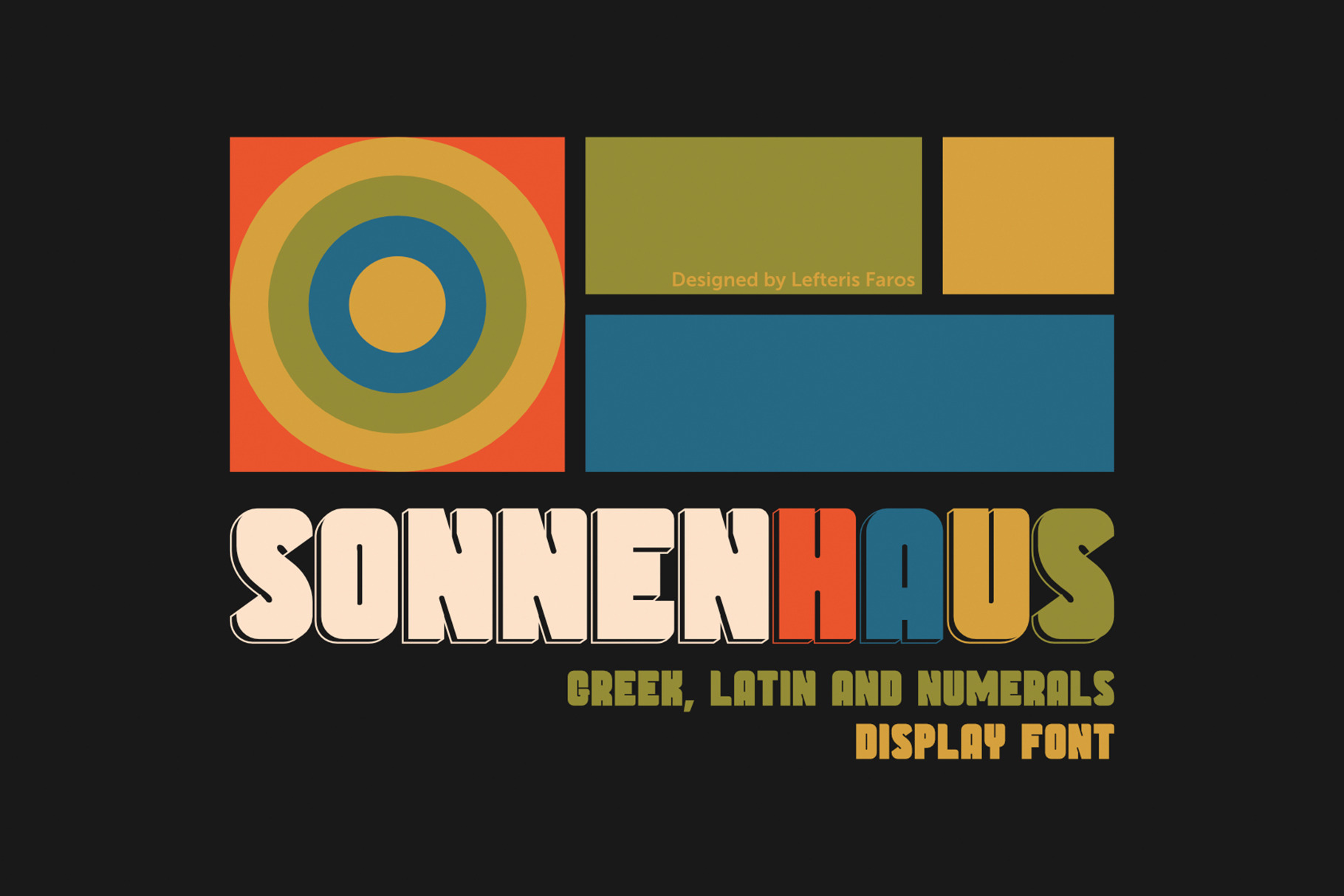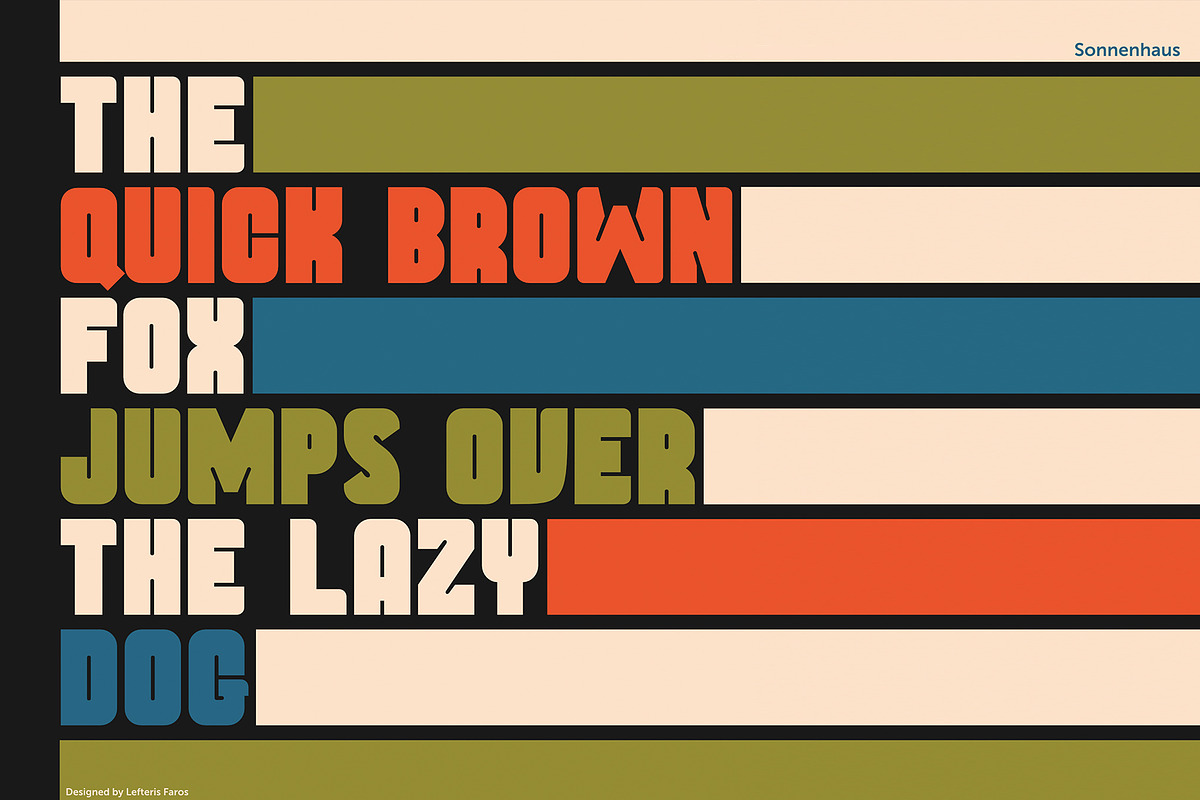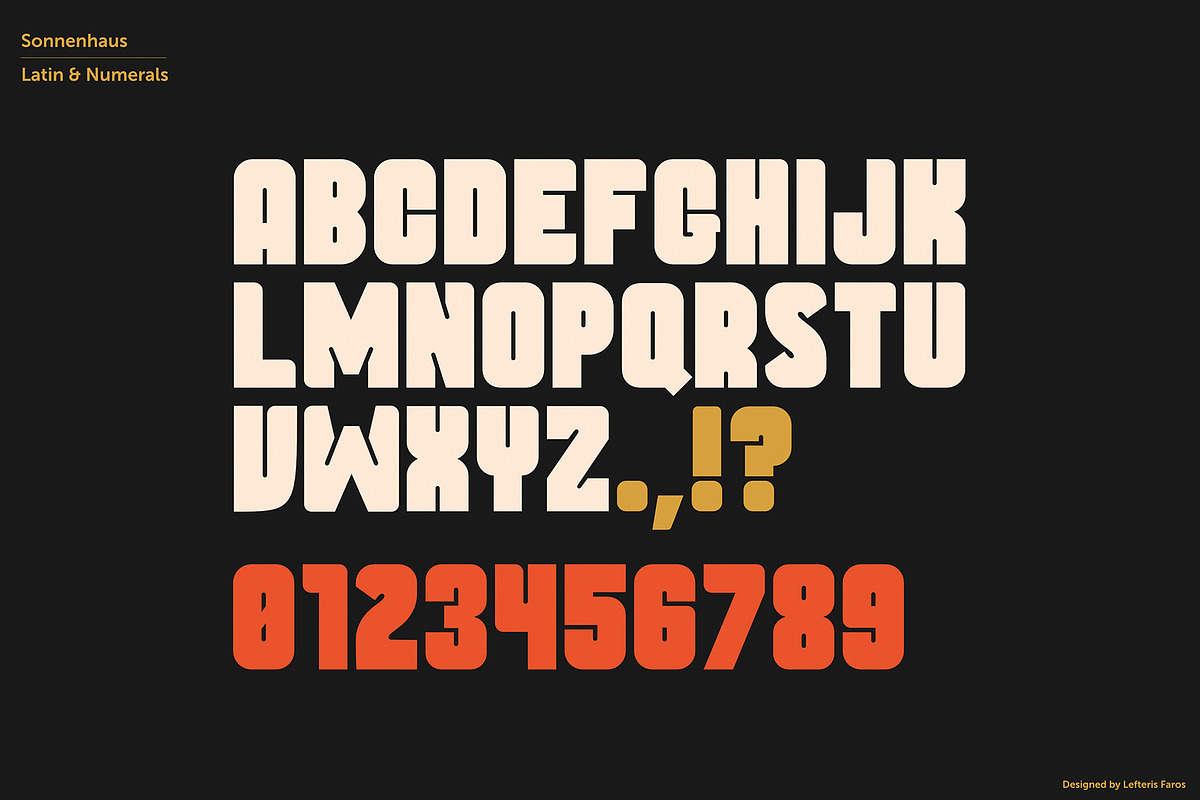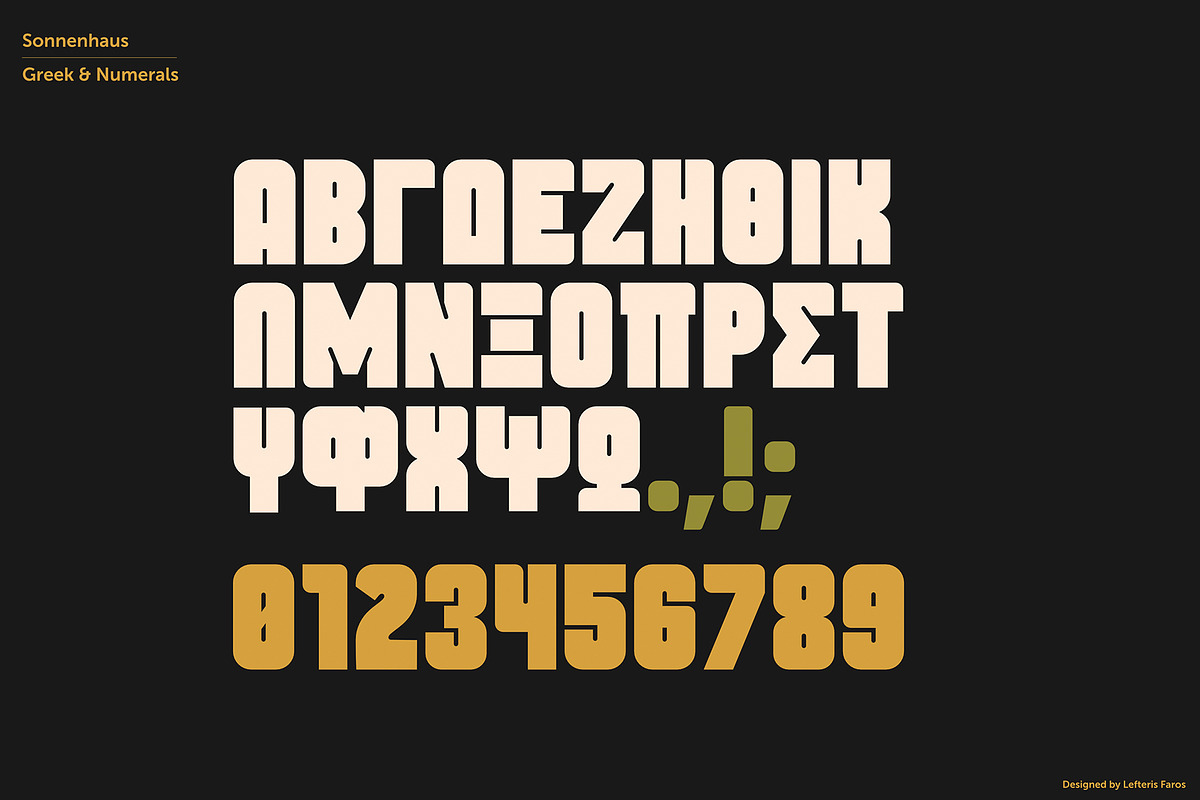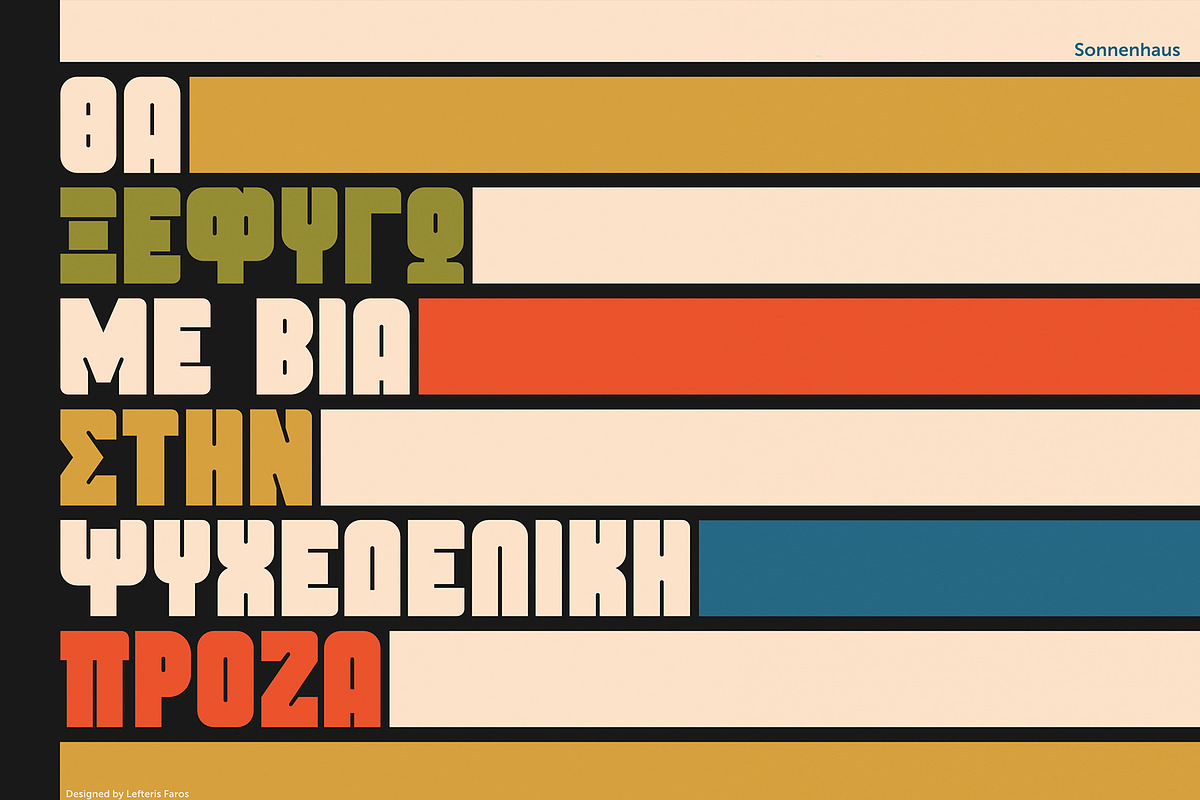
Sonnenhaus - Display Font
Sonnenhaus is an uppercase only Display Font. Created with simple grid geometry (mostly vertical lines and similar curves) and inspired from the bauhaus movement. I decided to design this font because, as far as I know, there are not many (if any) choices for Greek fonts out there in this style.
PS: The 3D drop shadow effect on the first slide, can be achieved in any vector program, if you do the following:
- Duplicate the word that you want
- Move its position slightly
- Choose outline instead of fill
- Delete unwanted lines.